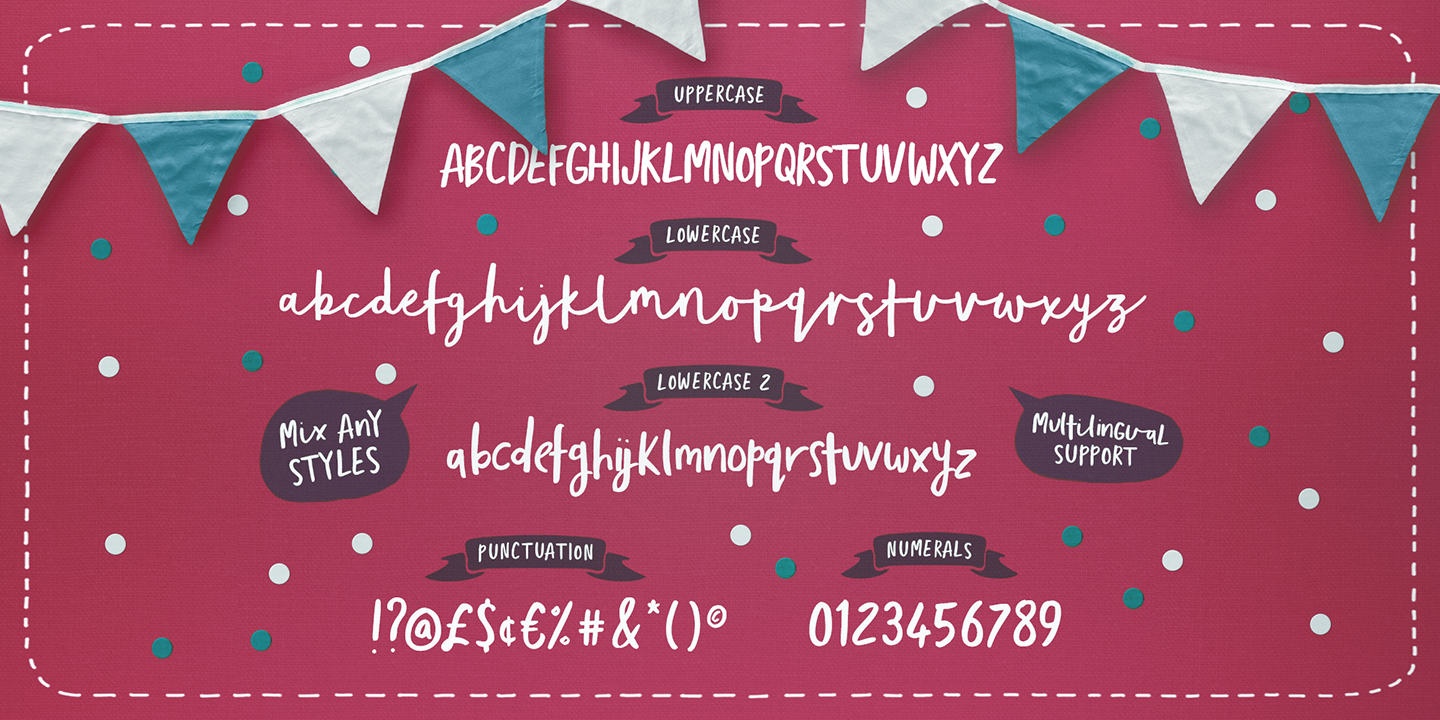
Totally Terrific Font is a fantastic choice for projects that demand a vibrant, playful, and undeniably cheerful aesthetic. It's perfectly suited for children's books, educational materials, party invitations, whimsical branding, and any design where you want to inject a sense of fun and approachability. Imagine it bringing a smile to faces on a playful poster, adding character to a lively website banner, or making learning materials feel more engaging and less daunting. Its lighthearted charm ensures your message is delivered with energy and positivity.
What makes Totally Terrific Font so exciting is its infectious optimism and dynamic personality. Each letter seems to dance off the page, brimming with an uncontainable zest for life. It's more than just a font; it's an instant mood lifter, capable of transforming mundane text into something truly delightful and memorable. This typeface doesn't just convey information; it creates an experience, inviting interaction and spreading joy. It's the perfect tool for designers looking to infuse their work with genuine enthusiasm and a touch of lighthearted wonder.
The Totally Terrific Font family typically includes a range of weights and styles to maximize its playful versatility. You might find a standard Regular weight that embodies its core cheerful design, along with potentially Bold or even outlined versions that can add extra emphasis and visual pop. Some families might also feature stylistic alternates or ligatures that enhance its unique, handcrafted feel. For anyone aiming to create designs that are genuinely engaging and full of character, the Totally Terrific Font Free Download offers an unbeatable starting point.